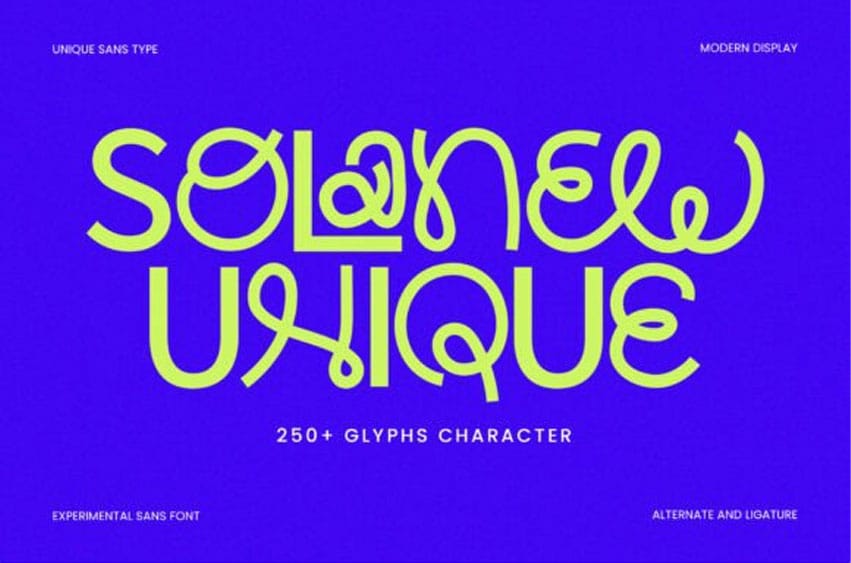
Solanew Font Unique is a bold experimental sans font with a futuristic flair and twisty ligatures. Its clean-yet-curious form brings personality to logos, posters, album covers, and tech-driven branding.
With over 250+ glyphs and unique alternates, this typeface is designed for designers who dare to be different. Playful, modern, and striking — it’s the future of display fonts.